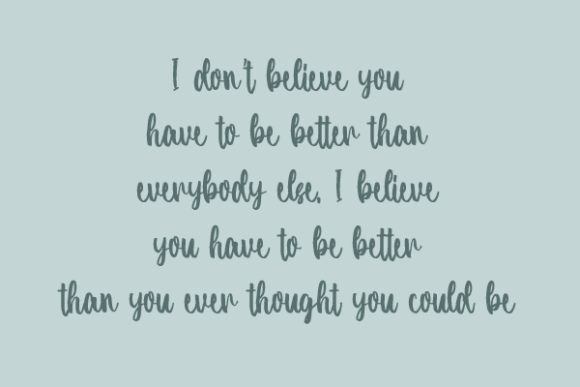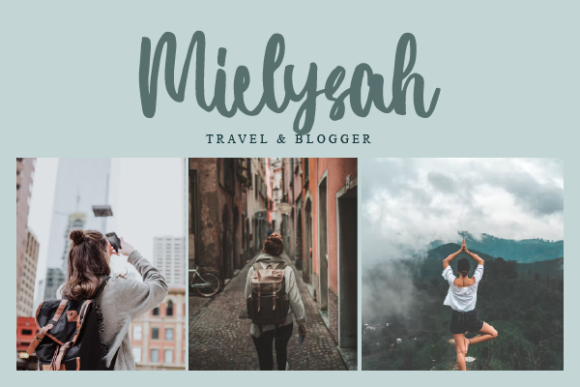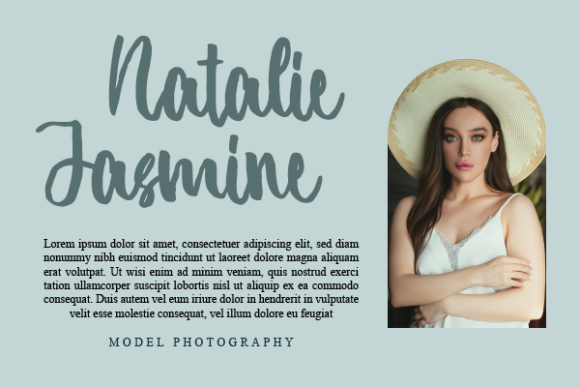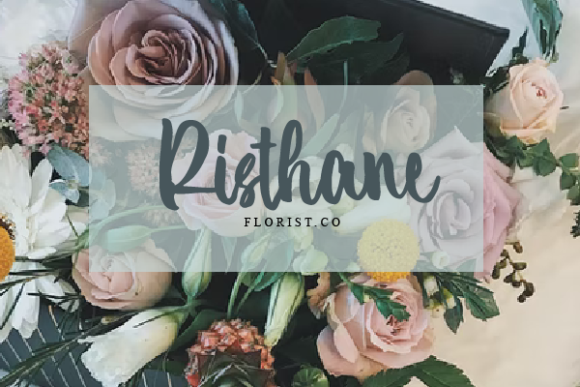
Introduction to Randall Madeleine Font Font
Fonts play a crucial role in design, and the Randall Madeleine Font font is a typeface that brings both character and versatility to any project. Whether you’re working on a branding project, a website, or a print design, the Randall Madeleine Font font offers a unique style that can elevate your work.
Randall Madeleine’s handwritten letters are perfect for wall displays, wedding invitations, social media post logos, advertisements, product packaging, product designs, labels, photography, watermarks, invitations, stationery, and any project that requires a handwritten taste.
Randall Madeleine’s handwritten letters are perfect for wall displays, wedding invitations, social media post logos, advertisements, product packaging, product designs, labels, photography, watermarks
Key Features of Randall Madeleine Font Font
Why Choose Randall Madeleine Font Font?
The Randall Madeleine Font font is more than just a typeface – it’s a design tool that helps you communicate your message with style and clarity. Its unique character set and versatile design make it suitable for a wide range of applications, from elegant invitations to bold headlines.
With its carefully crafted letterforms and balanced proportions, the Randall Madeleine Font font ensures readability and visual appeal across all mediums.
What makes Randall Madeleine Font font special?
The Randall Madeleine Font font stands out with its unique design, exceptional readability, and versatility across various design applications.